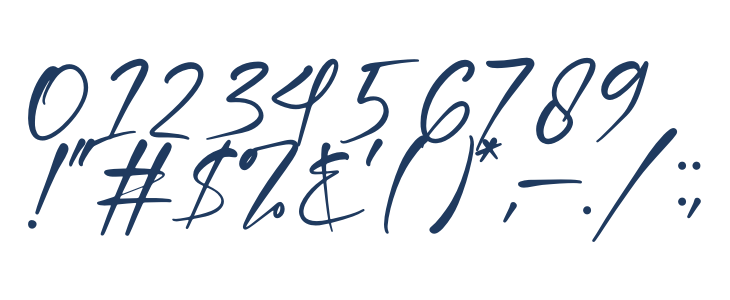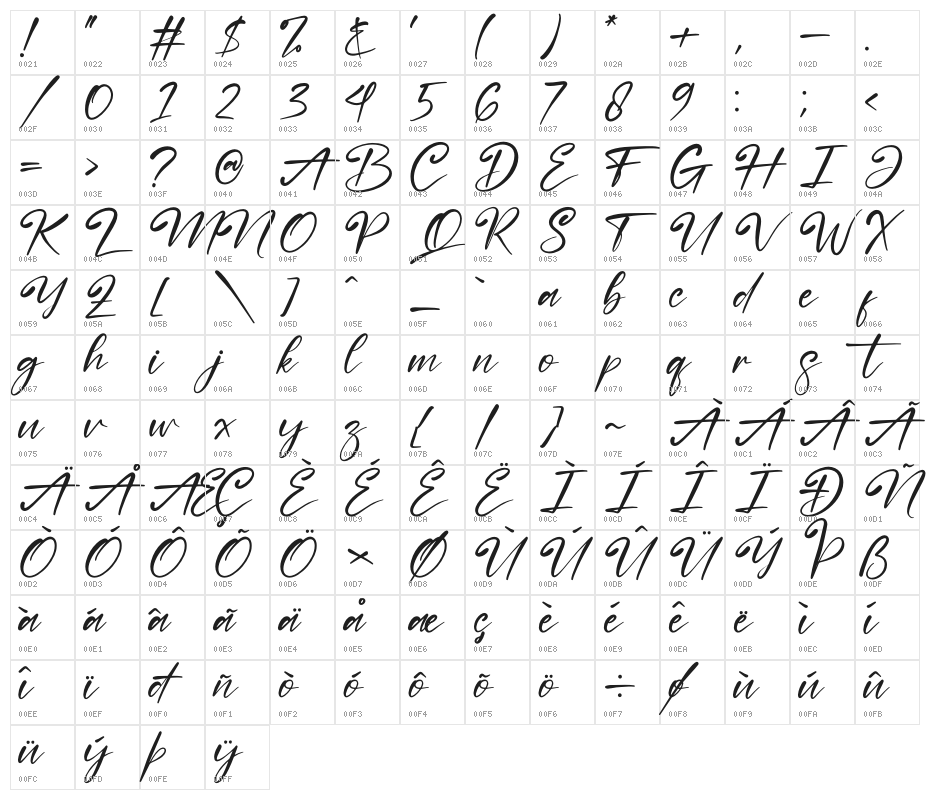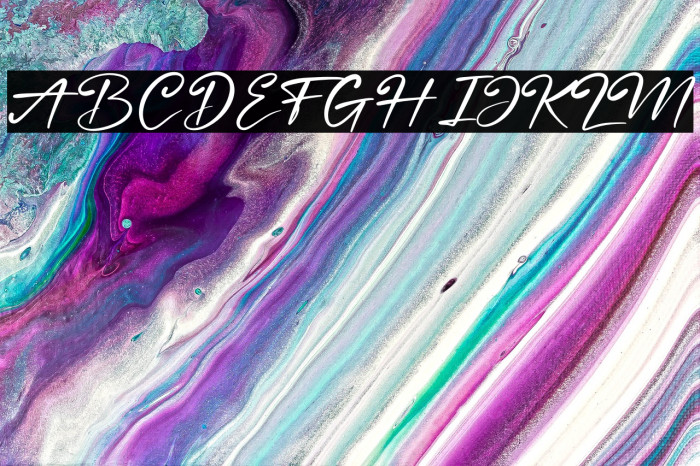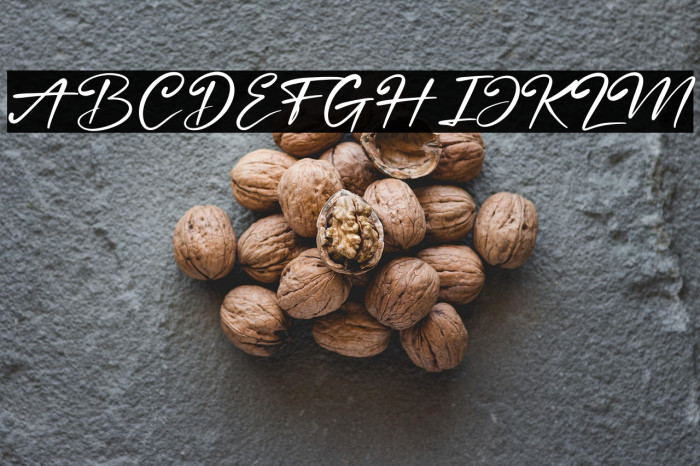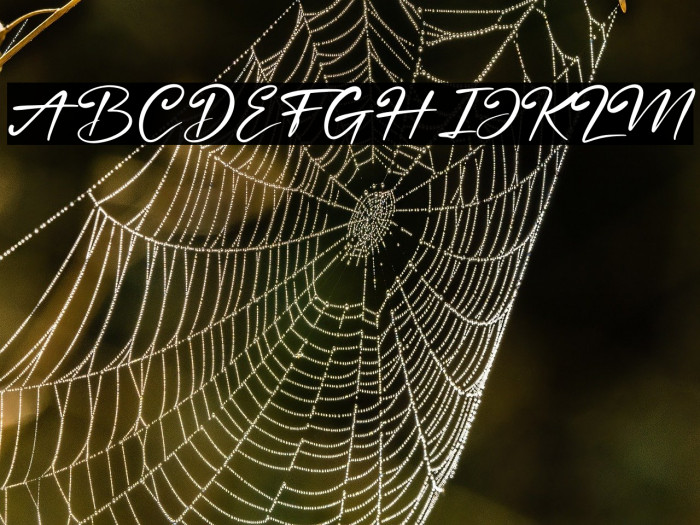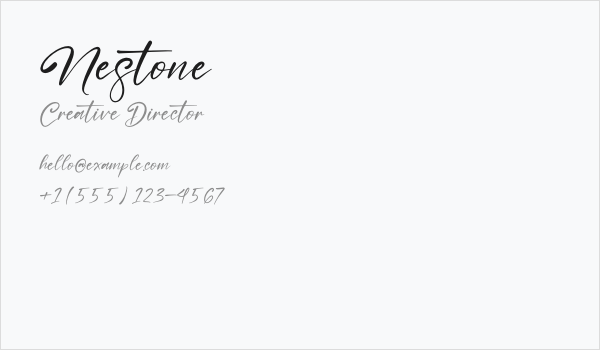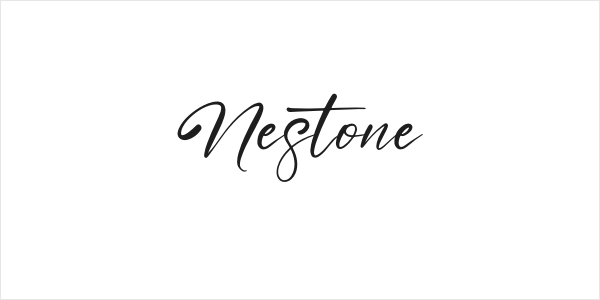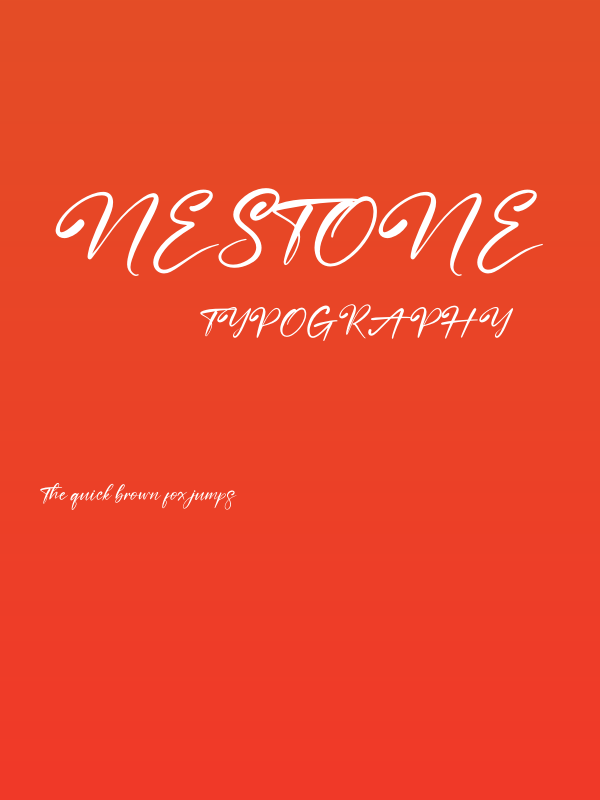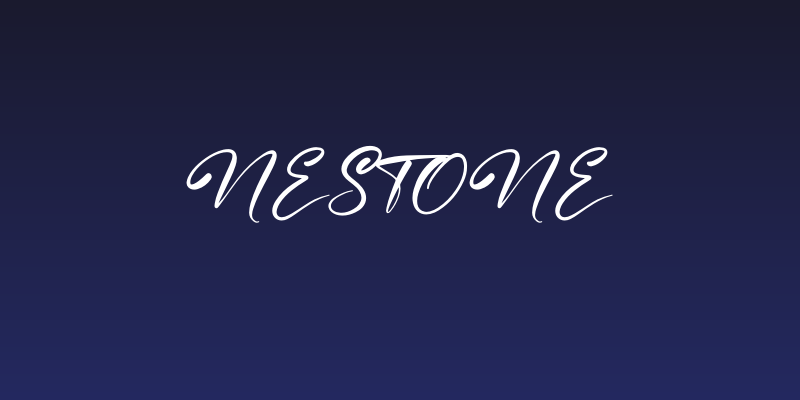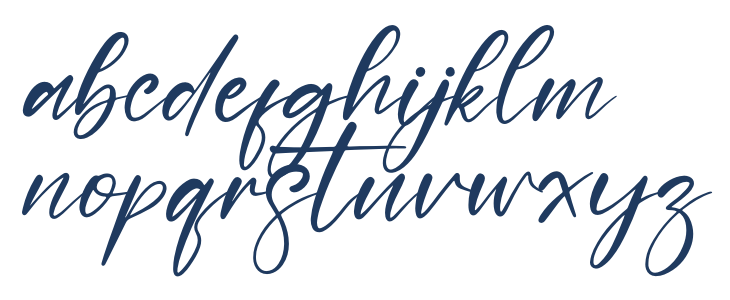
Nestone Font
Nestone Description
This font features an elegant and flowing script style, characterized by its smooth, cursive strokes and graceful curves. The letters are connected, giving it a handwritten appearance that is both sophisticated and approachable. The uppercase letters are slightly more embellished, while the lowercase letters maintain a consistent fluidity. Numbers and special characters are designed to match the overall aesthetic, ensuring a cohesive look. The font's style is reminiscent of traditional calligraphy, making it suitable for formal and decorative purposes.
| Overall Style | Classic |
| Use Case | Logos, Invitations, Decorative text |
| Proposed Projects | Ideal for wedding invitations, greeting cards, branding, and elegant logo designs. |